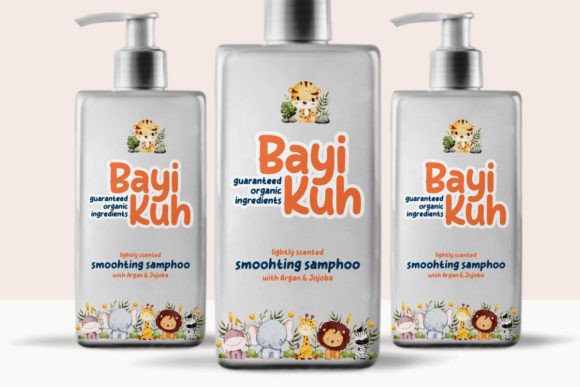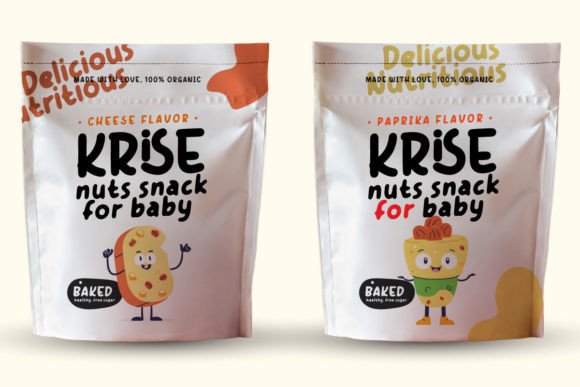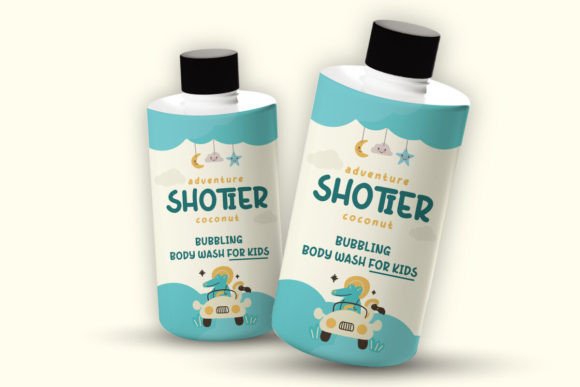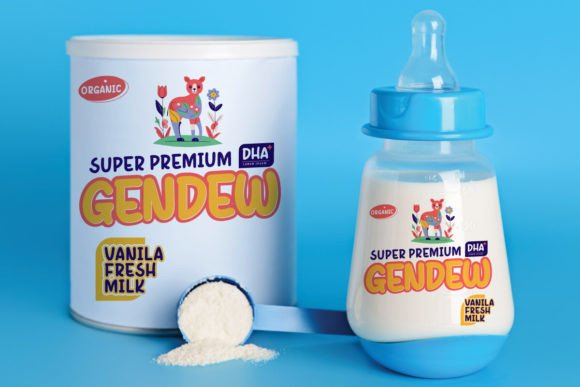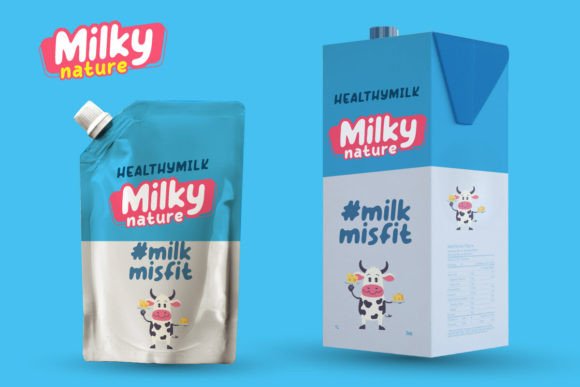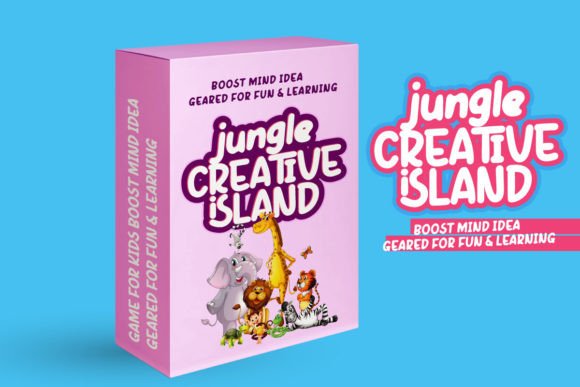
Babish Face Font: Adding a Touch of Fun to Your Designs
Welcome to a world of fun with Babish Face, a display font that combines a fun touch and an interesting aesthetic. Designed to liven up the atmosphere with cute and friendly characters, Babish Face is the perfect choice for a variety of creative projects that require captivating visual appeal.
Main Features of Babish Face Font
Babish Face comes with two unique family variants that cater to different design needs:
• Regular: Clean, easy-to-read format, ideal for the main text, titles, and content that requires high readability.
• Alternate: More abstract and experimental shapes, perfect for adding an artistic and dynamic touch to your designs.
Utility and Applications of Babish Face Font
The versatility of Babish Face makes it suitable for a wide range of applications:
• Child-Friendly Design: Ideal for children’s books, toys, educational products, and everything related to the world of children.
• Branding & Packaging: Suitable for food packaging, organic products, and items that require a friendly and inviting appearance.
• Event Promotions: Add a fun feel to event posters, party invitations, and thematic designs.
Why Choose Babish Face Font?
Babish Face is more than just a font; it’s a design element that can elevate your creative projects. Here are a few reasons why designers and crafters love Babish Face:
• Unique Aesthetic: The font’s cute and friendly characters provide a unique aesthetic that can set your designs apart.
• Versatility: With two family variants, you can use Babish Face for both main text and decorative elements.
• Readability: The regular version of the font ensures high readability, making it perfect for main content.
Tips for Using Babish Face Font Effectively
To get the most out of Babish Face, consider the following tips:
• Mix and Match: Combine the regular and alternate versions to create visual interest and hierarchy in your designs.
• Use for Headings: The alternate version is perfect for headings and titles where you want to make a bold statement.
• Add a Personal Touch: Use Babish Face to add a personal and friendly touch to your designs, making them more approachable and engaging.
Babish Face is a versatile and fun display font that can add a unique touch to your designs. With its two family variants and wide range of applications, it’s perfect for designers and crafters looking to create captivating and engaging visual content. Whether you’re working on a children’s book, branding project, or event promotion, Babish Face is sure to bring a smile to your audience’s faces.
Get Ready to Have Fun with Babish Face!
So, what are you waiting for? Dive into the world of fun with Babish Face and take your designs to the next level. With its friendly and cute characters, you’ll be able to create designs that are not only visually appealing but also engaging and memorable.